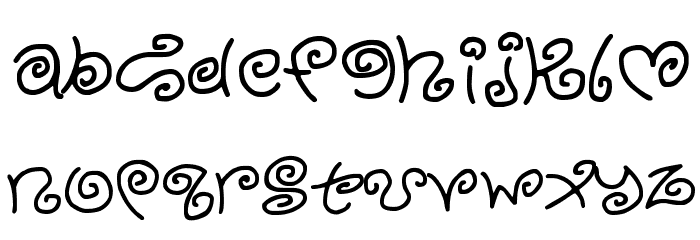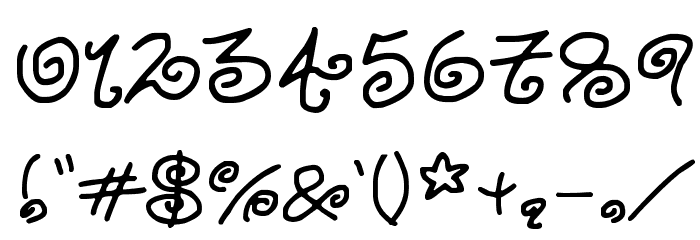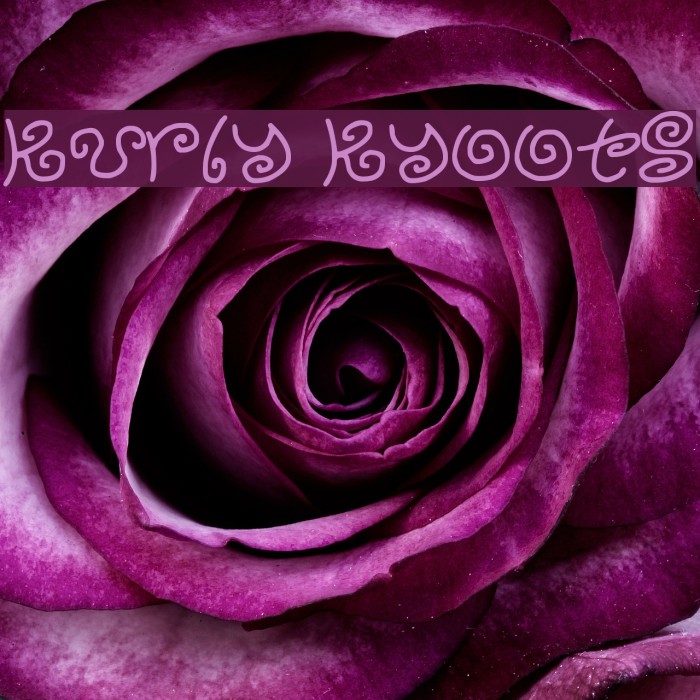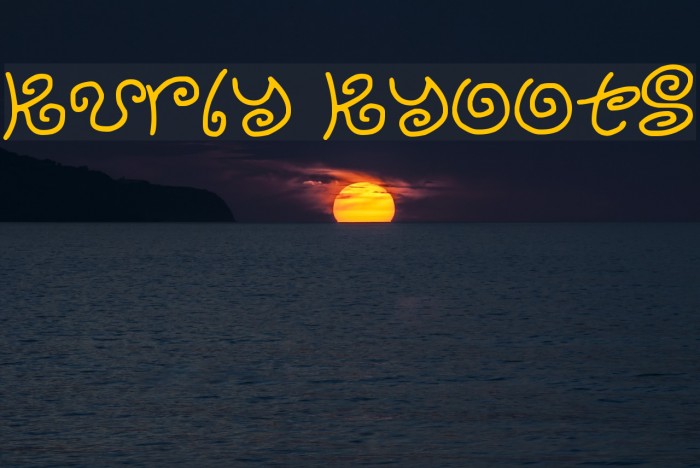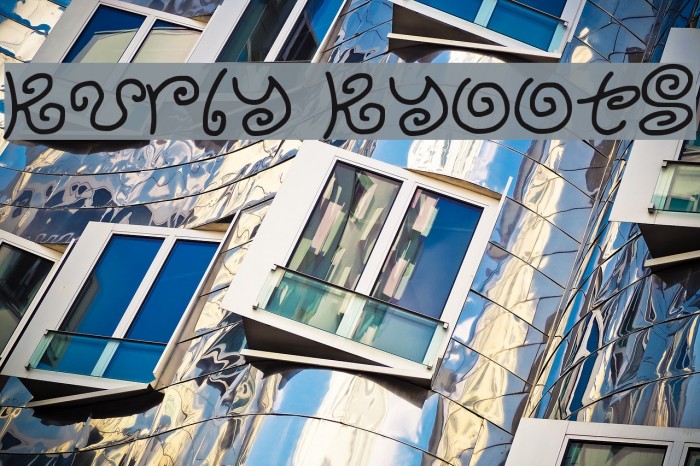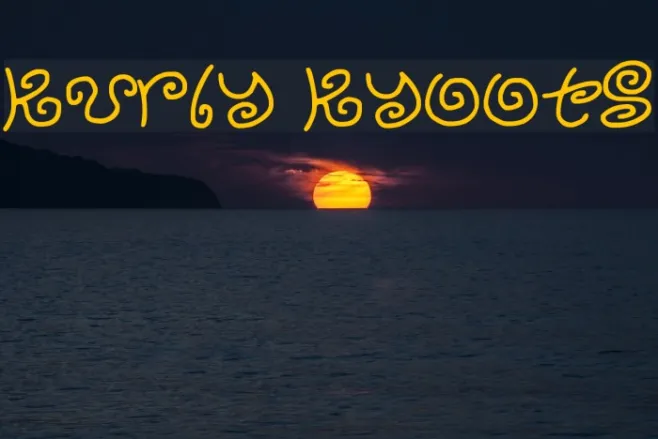
Kurly Kyoots Font
This font features a whimsical and playful design with a curly, hand-drawn aesthetic. Each character is uniquely crafted with loops and swirls, giving it a lively and energetic feel. The letters have a consistent stroke width, contributing to a cohesive look across the alphabet. The numbers and special characters maintain the same playful style, making them suitable for creative projects. The overall appearance is informal and fun, perfect for designs that require a touch of personality and charm.
A whimsical, curly font with a playful, hand-drawn style.
- Proposed Projects: Ideal for children's books, playful branding, greeting cards, and creative posters.
- Overall Style: Playful, Whimsical